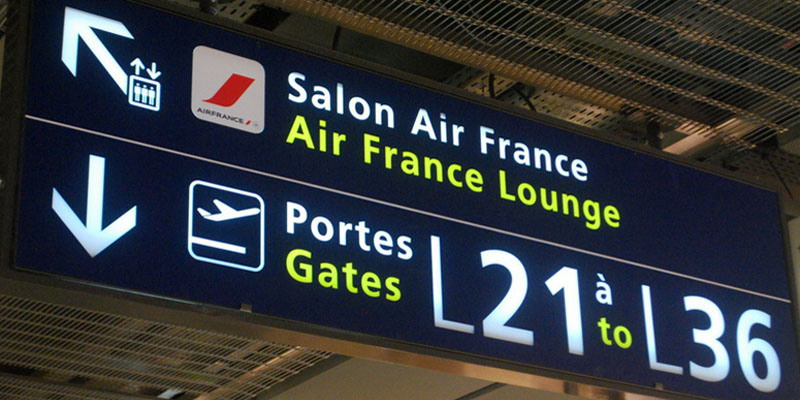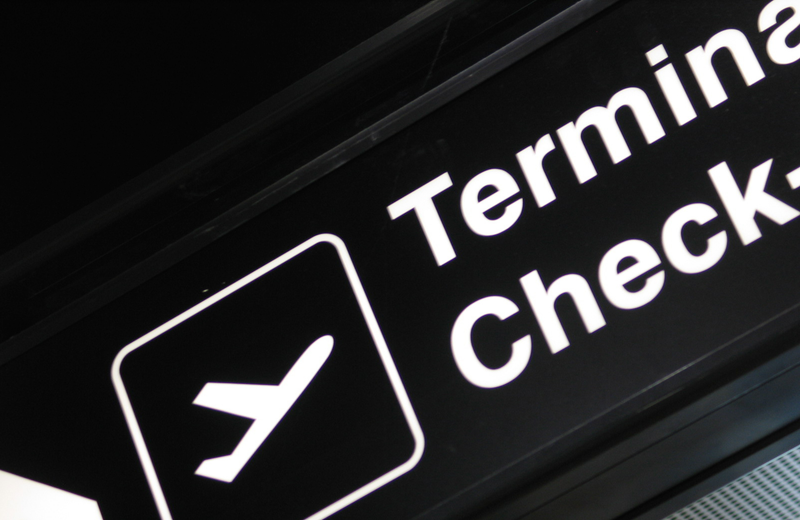
Why the Same Three Typefaces Are Used In Almost Every Airport
Wayfinding signage is an invisible network draped upon our public places. And that network has to work especially hard in airports when we’re lost, hungry, and exhausted. Especially when helping us navigate in jetlagged states using strange languages, good wayfinding means sticking to clear, legible typefaces. So how do designers choose?
“It’s like a spiderweb—you can’t touch one spot without making the whole web move,” says Jim Harding, who designed the wayfinding system for Atlanta’s Hartsfield International Airport, the busiest airport on the planet. In an interview adapted from David Zweig’s bookInvisibles: The Power of Anonymous Work in an Age of Relentless Self-Promotion, Harding takes us through the design catacombs of the Atlanta airport (okay, the terminals) to show us how he developed an international graphic language to prevent passengers from getting lost. In addition to all sorts of fascinating details about the behavior of travelers, the story includes this fascinating nugget: Just three typefaces are used in the wayfinding signage for 75 percent of airports: Helvetica, Frutiger, and Clearview.
It makes perfect sense that airports would employ sans serif typefaces, which are easier to read at a distance (and bad for small, on-screen type
). But there are also some pretty sweet little details found within these typefaces which make them winners for airport signage. Here are the three you’re most likely to find at an airport near you.
Helvetica
The granddaddy of wayfinding signage is the half-century-old Helvetica, which was developed in Switzerland. It has a supposedly “neutral” vibe which feels vaguely familiar and comfortingly classic, yet it doesn’t look dated. For readability it is especially embraced due to the distinctive shapes of its letters—including the lowercase “a” which will never be mistaken for an “o,” for example.
Frutiger
Frutiger was actually designed for an airport—Charles de Gaulle Airport in Paris—by Adrian Fruitger in 1975. Fruitger had developed the beloved Univers, another good sans serif font, but wanted to create something custom that would reflect the contemporary architecture of the airport. The typeface is known for having prominent ascenders and descenders—the parts of the letterforms that stick up and down like “l” and “p”—and wide apertures, or partially-enclosed openings inside letters like “e” and “n.”
Clearview
Specifically developed for the American interstate highway system in the early 2000s, Clearview was almost data-driven based on legibility at a distance. The biggest changes to make the type more readable came in the expansion of counter spaces, the enclosed spaces in letters like “a” and “g,” and higher relative heights from lowercase to uppercase, like the difference between “x” and “X”
Now as you’re running to your gate because the security line was so long or whiling away the hours at the bar before your next delayed flight, you can play guess the font and make your time at the airport that much more fun. [The Atlantic via @NicolaTwilley]